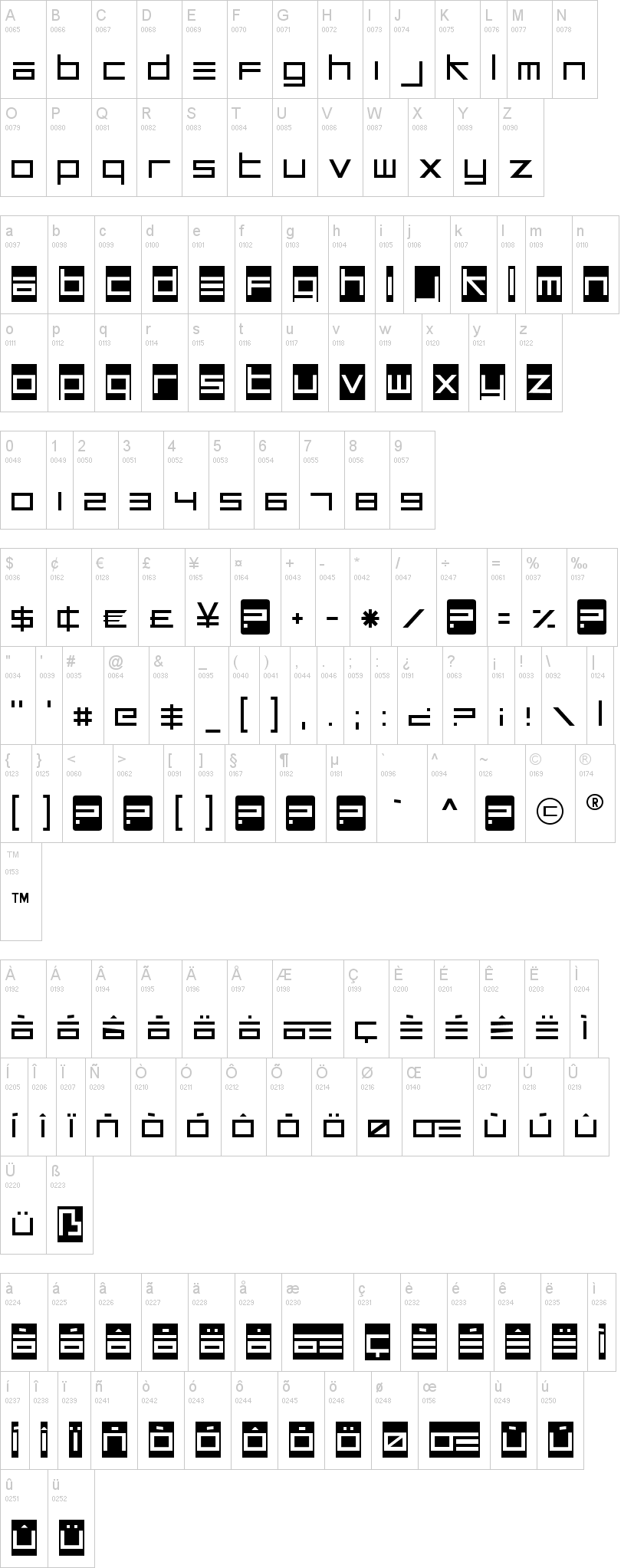
Шрифт Unsteady Oversteer
Unsteady Oversteer is a geometric techno font with an inverse lowercase. Made with anger, delivered with love. Don't forget to read the files inside the zip for details. Updated in 2012.